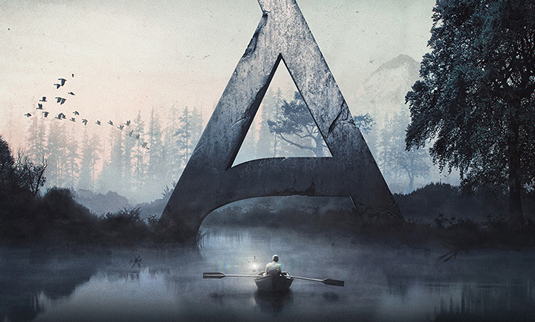
Font of the day: Arkhip
Arkhip from Design Klimov
Today's typeface of choice Arkhip is a 'free font with Russian soul'. Created by the team at Design Klimov, this bold design is perfect for creating stand out posters, headlines and much more.